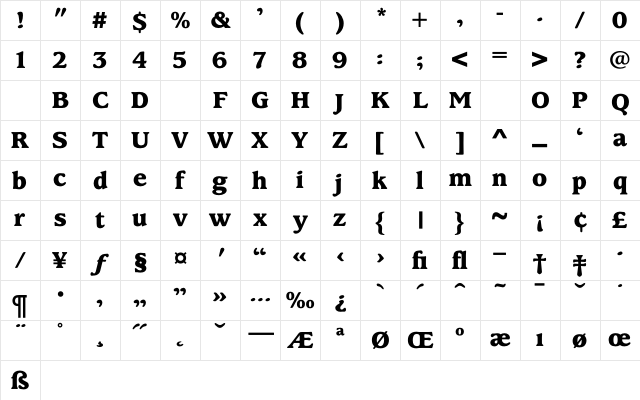
KingsrowExtraBold Regular Free Font
KingsrowExtraBold Regular
Design Context for KingsrowExtraBold
KingsrowExtraBold is a composed and adaptable typeface that performs quietly and consistently across a wide range of design contexts. Its bold stroke weight gives it real presence on the page.